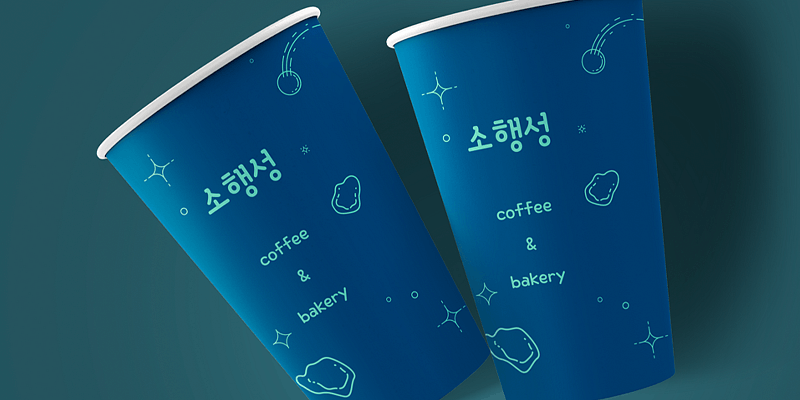
Sandoll GreenTeaLatte is a cute and rhythmic font.
With the unique Serif curves lined at the top, it gives a neat impression, while the consonants without bottom characters have a non-square module, making the font more interesting.